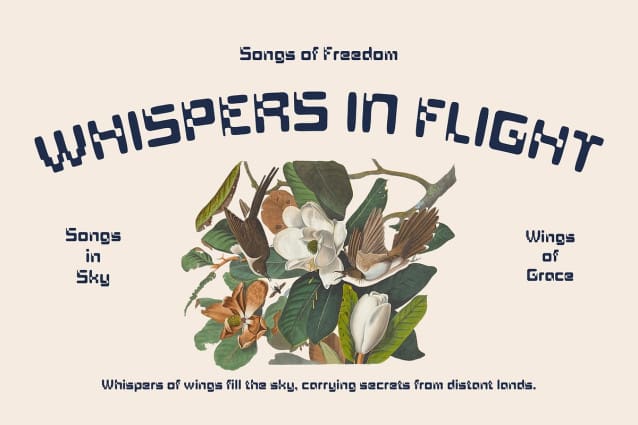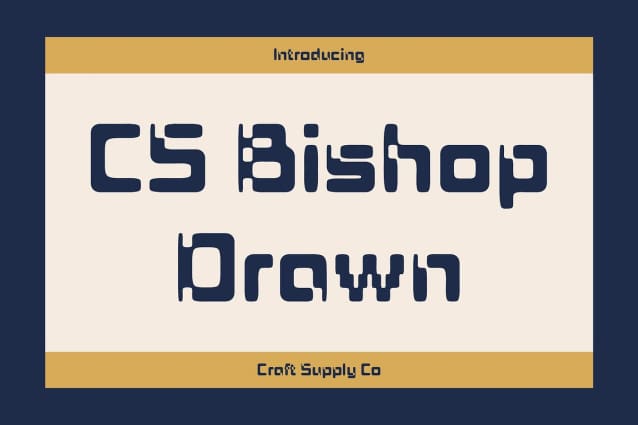
CS Bishop Drawn Font
CS Bishop Drawn Font is a unique display font that masterfully combines the nostalgic pixelated style with a free-spirited, hand-drawn effect. The pixel shapes, inspired by the digital displays of the 80s and 90s, evoke a strong sense of retro nostalgia, bringing to mind the early days of video games and pixel art. The bold, blocky design of the characters makes a statement while instantly connecting with those familiar with vintage digital aesthetics.
Handcrafted Texture for Dynamic Energy What sets this font apart is its dynamic drawn effect. Each letter retains its pixelated form, but the added hand-drawn details infuse it with texture and personality. The drawn effect adds a tactile, artistic touch that softens the rigid, geometric shapes of the pixels, giving the font a lively, creative energy that appeals to a modern audience.
A Creative Twist on Retro Nostalgia This drawn font strikes a unique balance between the past and present, offering a playful and nostalgic look that’s full of life and character. Whether you’re designing for a gaming project, a retro-themed event, or simply want to add a vintage touch to your design, this font offers the perfect mix of retro pixel style and contemporary artistic flair.